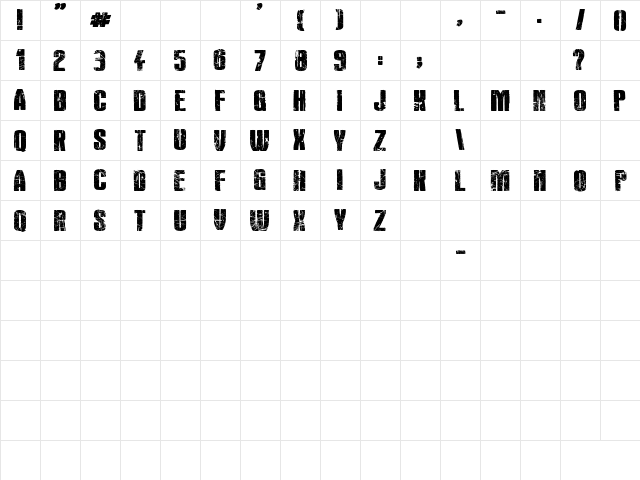
Rock's Death Regular
Design Context for Rock's Death Typeface
Rock's Death carries an unsettling edge — its distorted letterforms are built to unsettle, perfectly suited to horror, Halloween, and dark creative work.
Perfect for anything that needs to unsettle — game titles, horror branding, and macabre invitations.
Font Pairing: Pair with a clean neutral sans-serif for body copy to let Rock's Death's character lead without overwhelming the composition.
Pro Tip: Use Rock's Death at larger display sizes for maximum impact. Consider generous tracking to let the disturbing character of each letterform breathe.